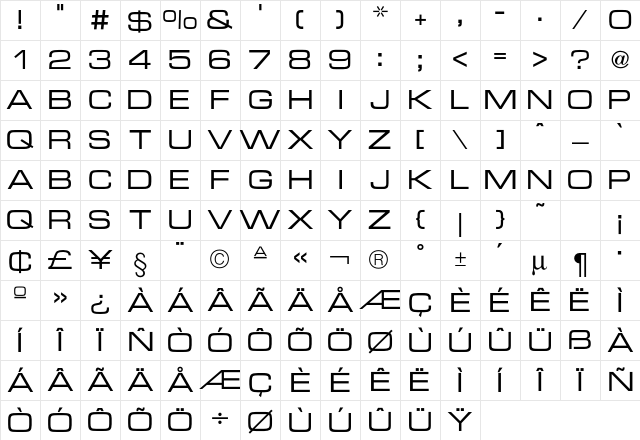
Micro TechnicExt Free Font
Micro TechnicExt
Style: TechnicExt
Micro Family
Complete Micro TechnicExt glyph index. Displaying only characters natively supported by Micro TechnicExt font.
Design Context for Micro
Micro has a distinctly futuristic character, with geometric precision and clean angles that feel at home in technology, gaming, and sci-fi contexts.
Pro Tip: Try Micro with generous letter-spacing in UI labels and navigation - the geometric forms benefit from room to breathe.